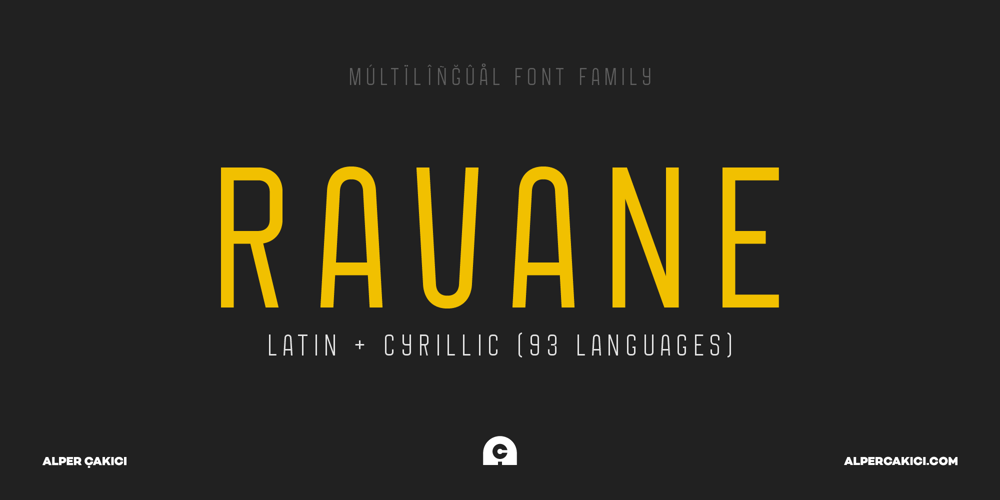
Ravane Font Family was designed by Alper Çakıcı and published by Umka Type. Ravane contains 7 styles and family package options. Ravane is a modern, versatile headline font with excellent kerning, making it ideal for both digital and print use. It features full support for the Cyrillic language, allowing for seamless multilingual communication. The font’s unique design combines classic proportions with a contemporary feel, making it stand out from other same categories fonts.It supports 91 Languages: Belarusian, Russian, Afrikaans, Albanian, Asu, Basque, Bemba, Bena, Breton, Catalan, Chiga, Colognian, Cornish, Croatian, Czech, Danish, Dutch, Embu, English, Esperanto, Estonian, Faroese, Filipino, Finnish, French, Friulian, Galician, German, Gusii, Hungarian, Indonesian, Irish, Italian, Kabuverdianu, Kalenjin, Kamba, Kikuyu, Kinyarwanda, Latvian, Lithuanian, Lower Sorbian, Luo, Luxembourgish, Luyia, Machame, Makhuwa-Meetto, Makonde, Malagasy, Maltese, Manx, Meru, Morisyen, North Ndebele, Norwegian Bokmål, Norwegian Nynorsk, Nyankole, Oromo, Polish, Portuguese, Quechua, Romanian, Romansh, Rombo, Rundi, Rwa, Samburu, Sango, Sangu, Scottish Gaelic, Sena, Serbian, Shambala, Shona, Slovak, Soga, Somali, Spanish, Swahili, Swedish, Swiss German, Taita, Teso, Turkish, Upper Sorbian, Uzbek (Latin), Volapük, Vunjo, Walser, Welsh, Western Frisian, Zulu